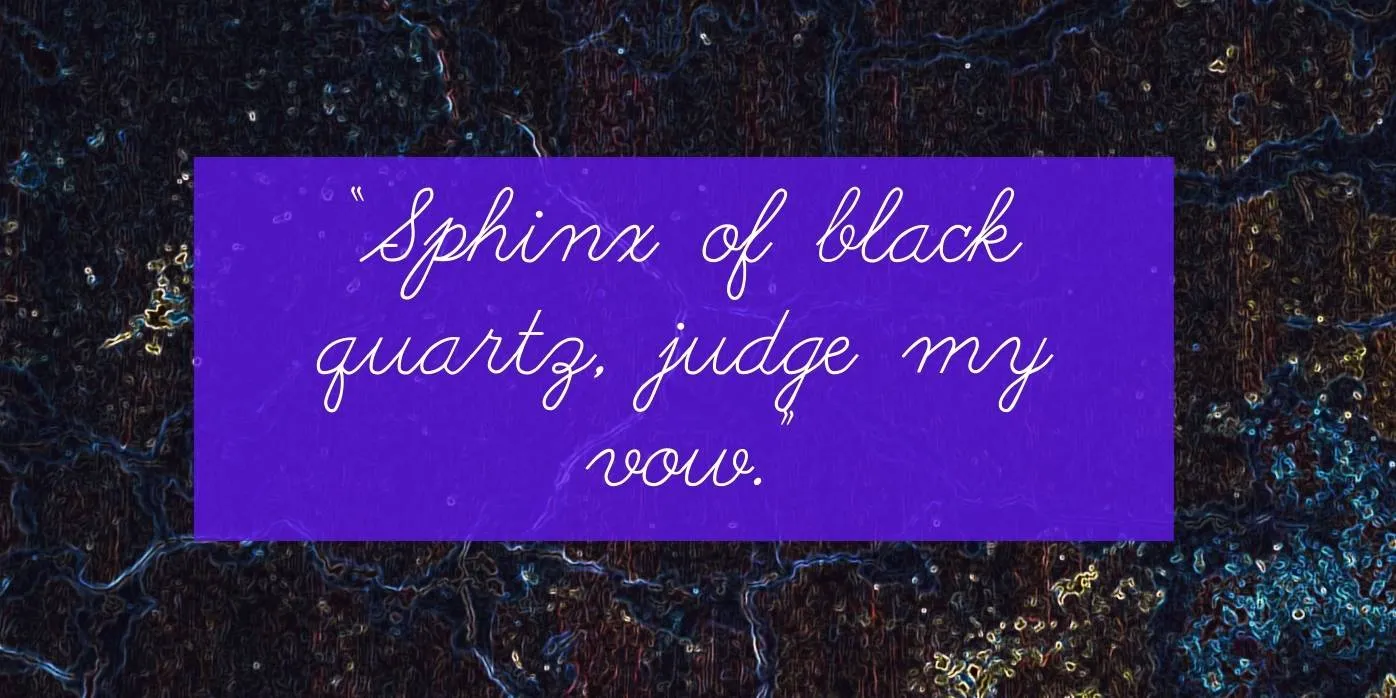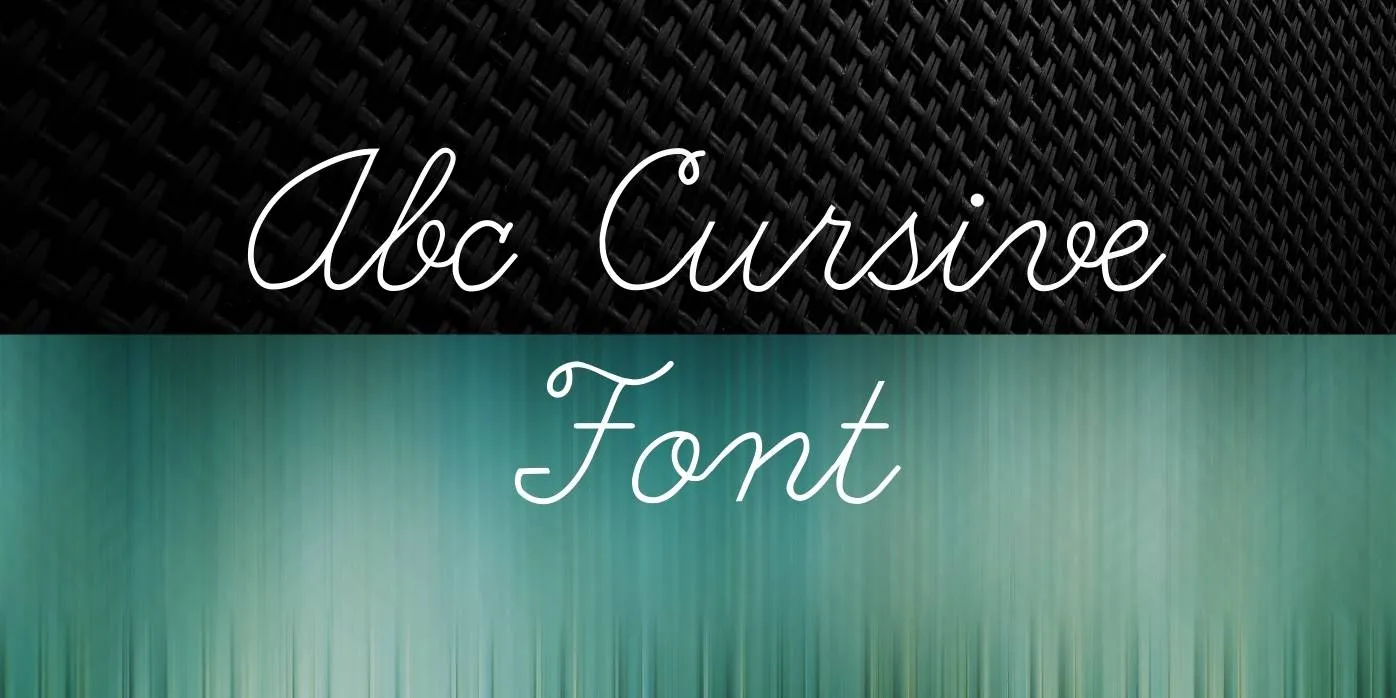
Abc Cursive Font
Here, we present a new classic typeface that is known as Abc Cursive Font. It belongs to the Handwritten category.  As the name suggests, it is a font with a handwritten touch. This typeface is available in three styles- regular, slanted, and italic. All of these styles have a different feel and can be used for various purposes.